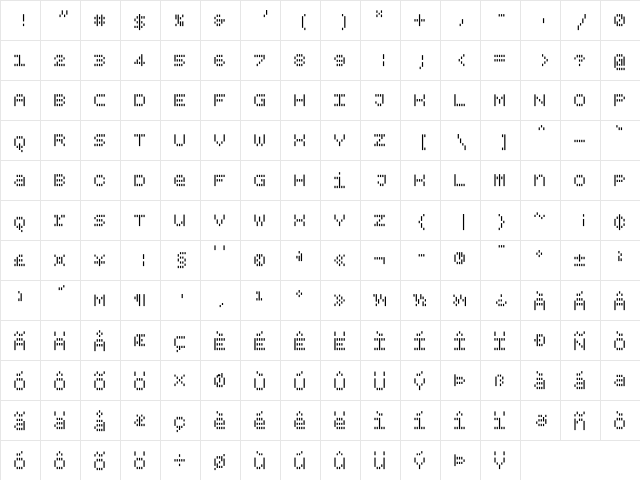
BPdotsUnicaseVertical Bold
| Foundry | George Triantafyllakos |
| Designer | George Triantafyllakos |
Design Context for BPdotsUnicaseVertical Typeface
BPdotsUnicaseVertical is rooted in pixel-grid construction, making it a natural fit for game UI, retro computing aesthetics, and digital nostalgia projects.
A natural choice for retro game titles, chiptune music branding, 8-bit UI, and digital nostalgia projects.
Pro Tip: Pair BPdotsUnicaseVertical with flat colour palettes and simple geometric UI elements to reinforce its digital aesthetic.